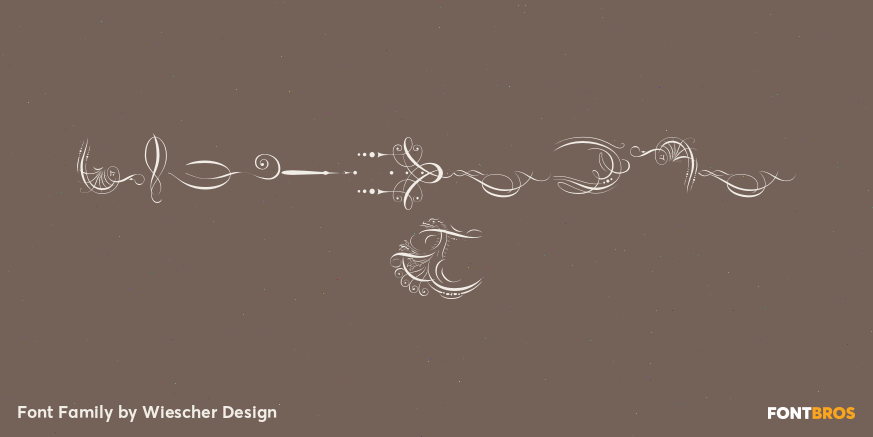
HomeFont BrosDingbatFlourishes A Dingbat Flourishes A FacebookXPinterestWhatsApp 1 of 1 About Flourishes A FlorishesA are a set of flourishes, that serves well for frames and other elegant embellishments, they are beginning of last century American. Your I-found-them-somewhere type-designer, Gert Wiescher  DOWNLOAD NOW People also explored Seelyn Font No Virus Easy Breezy Font Flattering Font Stripess Font Compass Font Mommy Font Scotland Font Pilates Font 283 0 TagsFlourishes A Font Previous articlePAG IndustriaNext articleAnnabelle LEAVE A REPLY Cancel reply Comment: Please enter your comment! Name:* Please enter your name here Email:* You have entered an incorrect email address! Please enter your email address here Website: Save my name, email, and website in this browser for the next time I comment. Personal Use Free Haris Wood Personal Use Free Read more about this font Font Slice Personal Use Free Read more about this font Dimensional Look71 Personal Use Free Read more about this font Bonifaciy Personal Use Free Read more about this font BLOG Using Fonts in Digital Marketing: Tips to Strengthen Your Brand Identity In the realm of digital marketing, every visual element plays a crucial role in shaping a brand's identity, and fonts are no exception. The... Where to Buy American Fonts Online in 2024 How to Install and Use Fonts on Windows, macOS, and Web Projects The 10 Best Handwriting Fonts to Add Personality to Your Designs